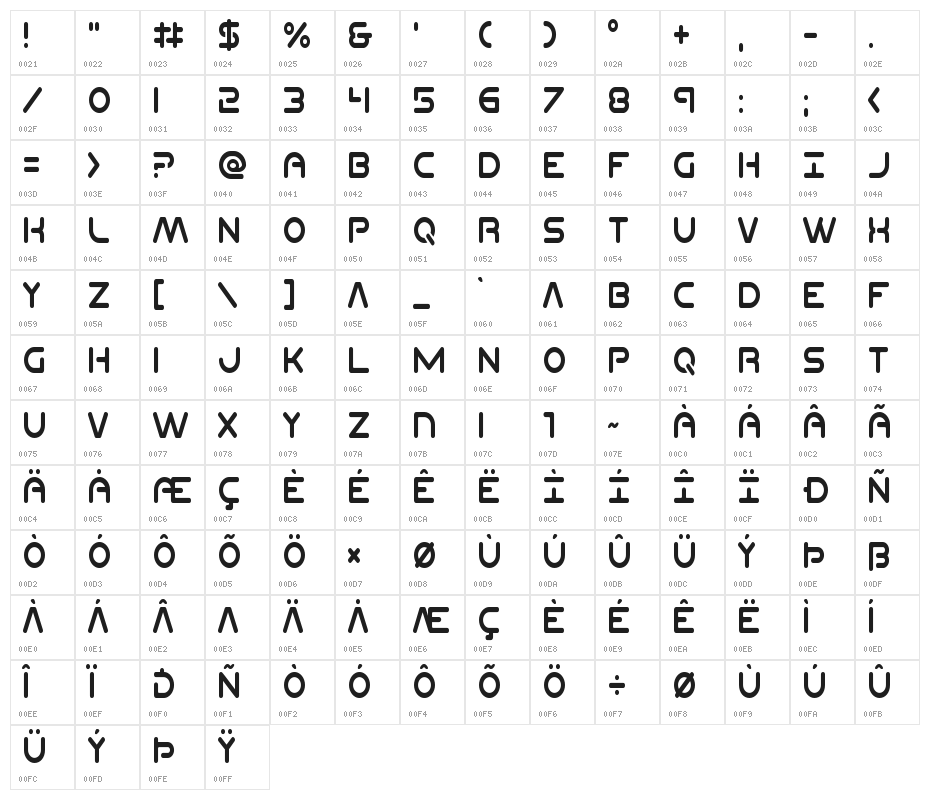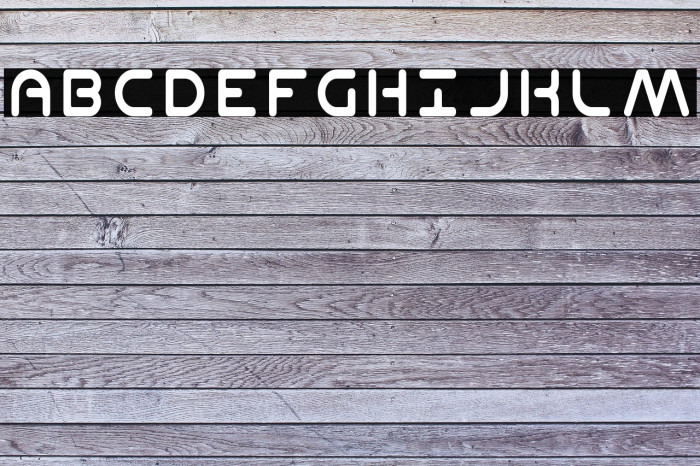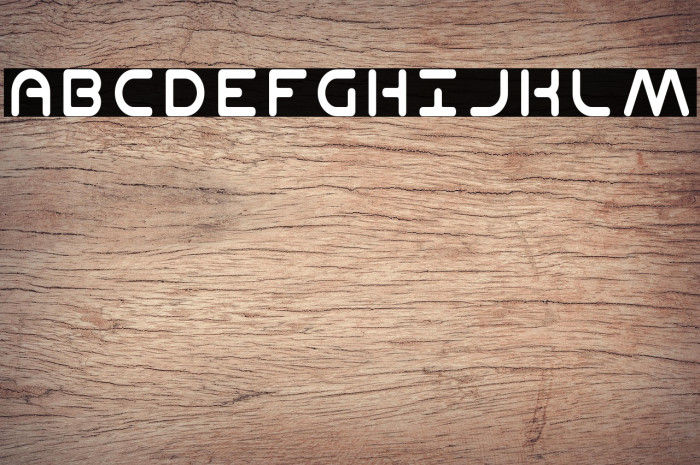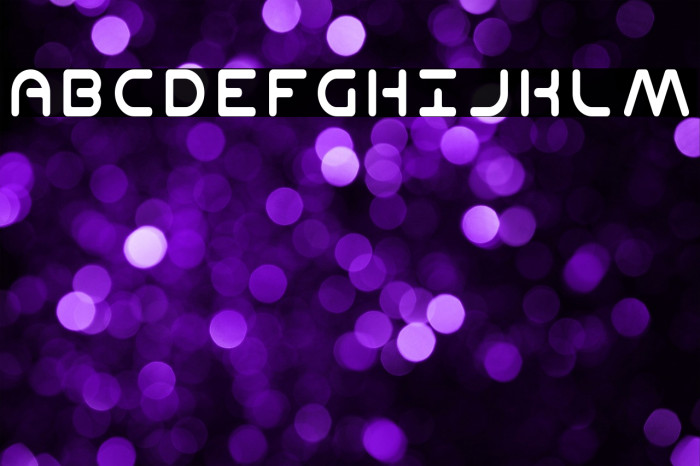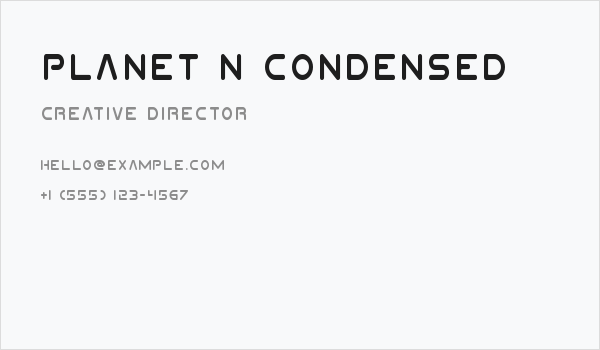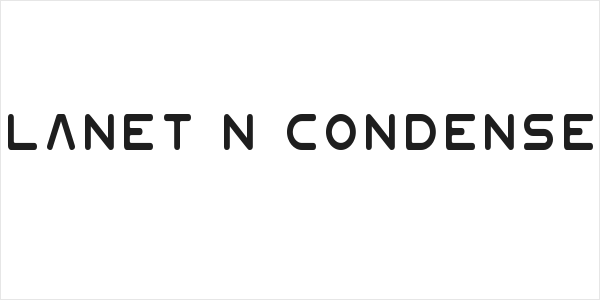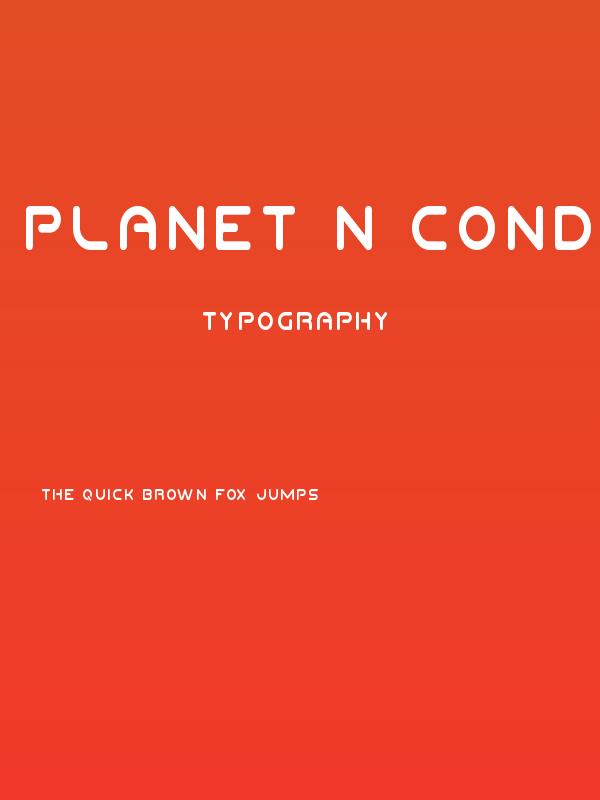
Planet N Condensed Font
Planet N Condensed Description
This font features a futuristic and geometric design with rounded edges and a uniform stroke width. The characters are bold and condensed, giving a compact appearance while maintaining readability. The style is modern and sleek, with a slight sci-fi influence, making it suitable for technology-related projects. The uppercase and lowercase letters are consistent in style, and the numerals are clear and distinct. Special characters are included, maintaining the overall aesthetic of the font.